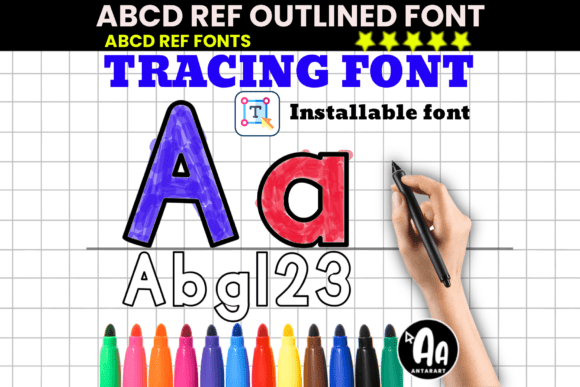
Unlock the Power of Learning with Bold Outlined Tracing Font
The world of early literacy and motor skill development has just gotten a whole lot more exciting! Introducing the ABCD REF Outlined Font and Alphabet Letters Formation Font, two innovative tools designed to make learning fun and engaging for young minds. These bold outlined tracing fonts are perfect for coloring and tracing activities, ideal for early learners, and adaptable for various educational settings.
What are Bold Outlined Tracing Fonts?
Bold outlined tracing fonts are specifically designed to facilitate learning and creativity in young children. These fonts feature hollow letters with clean edges, inviting kids to fill them in with their favorite colors. The result is a fun and interactive way to develop essential skills, such as handwriting, letter formation, and fine motor control.
Key Features of the ABCD REF Outlined Font
- Uppercase, lowercase, and number characters
- Hollow letters with clean edges for easy tracing and coloring
- Ideal for early literacy and motor skill development
- Perfect for worksheets, classroom displays, posters, and interactive activities
Exploring the Alphabet Letters Formation Font
The Alphabet Letters Formation Font is a bold, outlined handwriting font designed with teachers and early learners in mind. It follows the traditional school handwriting style, making it an excellent resource for teaching letter formation and helping learners develop their handwriting skills.
- Uppercase and lowercase letters
- Numbers (0β9) and common symbols
- Perfect for printable practice sheets, bulletin board letters, classroom dΓ©cor, editable student name templates, and customized tracing worksheets
Benefits for Early Learners
The bold outlined tracing fonts offer numerous benefits for early learners, including:
- Develops fine motor skills through coloring and tracing activities
- Enhances print handwriting skills and builds confidence in letter formation
- Encourages creativity and self-expression through interactive activities
- Ideal for children aged 4β8, from preschool and kindergarten through first and second grade
Why Choose these Fonts?
These bold outlined tracing fonts are an excellent choice for teachers, homeschooling parents, and caregivers seeking to make handwriting lessons engaging and effective. Here are just a few reasons why:
- Perfect for back-to-school reviews, alphabet practice sheets, handwriting books, and other classroom resources
Tips for Using Bold Outlined Tracing Fonts
Here are some creative ways to incorporate bold outlined tracing fonts into your teaching or homeschooling practice:
- Create customized tracing worksheets for individual learners
- Design interactive classroom displays and posters
- Develop engaging printable practice sheets for handwriting and letter formation
- Use the font for editable student name templates and classroom dΓ©cor
In conclusion, the bold outlined tracing fonts, including the ABCD REF Outlined Font and Alphabet Letters Formation Font, are invaluable resources for early learners. These innovative tools offer a fun and interactive way to develop essential skills, such as handwriting, letter formation, and fine motor control. With their ease of use, compatibility with popular software, and adaptability for various educational settings, these fonts are perfect for teachers, homeschooling parents, and caregivers seeking to make learning engaging and effective.